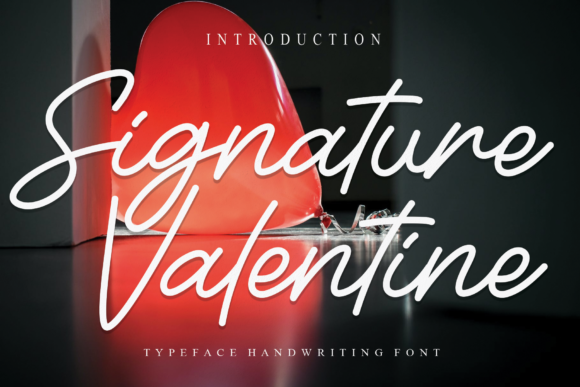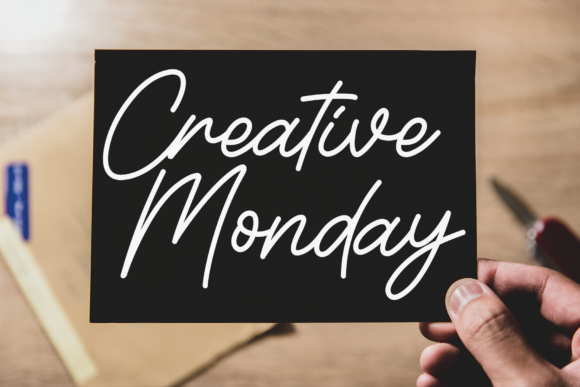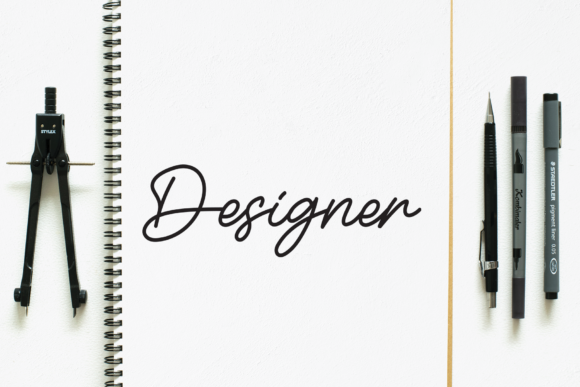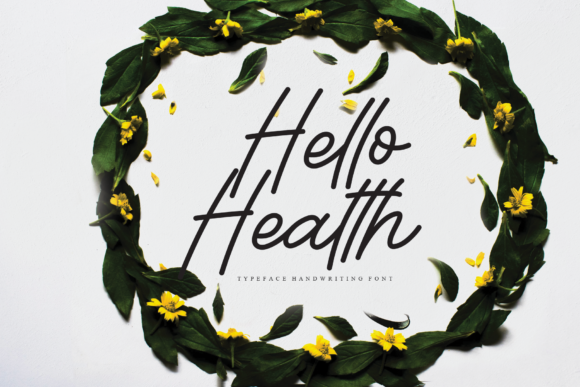
About Signature Valentine Font
Signature Valentine is a thin and simple handwritten font that brings a touch of elegance and charm to any design. With its clean and minimalist style, this font has the power to elevate your creations and add a sophisticated touch.
The thin strokes and fluid curves of Signature Valentine give it a delicate and graceful appearance. Its simplicity and understated beauty make it versatile and suitable for a wide range of topics and design projects. Whether you’re working on wedding invitations, logos, branding materials, or any other creative endeavor, Signature Valentine will enhance your designs with its timeless appeal.
One of the key strengths of Signature Valentine is its versatility. It blends seamlessly with different design styles, adapting to both modern and classic aesthetics. The font’s simplicity and clarity ensure that your message is communicated clearly and effectively, while its thin strokes add a touch of refinement and elegance.
Signature Valentine is a valuable asset to any font library because of its ability to bring a sense of sophistication and versatility to your designs. It is particularly well-suited for projects that require a clean and minimalist approach, such as elegant stationery, high-end fashion, or luxury branding. The font’s simplicity allows it to shine and create a sense of refined beauty in your designs.
Whether used in print or digital media, Signature Valentine captures attention and creates a lasting impression. Its thin and simple letterforms exude a sense of elegance and balance, showcasing the artistry behind the handwritten style. By incorporating Signature Valentine into your designs, you can achieve a polished and sophisticated look that elevates your overall visual presentation.
In summary, Signature Valentine is a thin and simple handwritten font that possesses the power to enhance any creation. Its versatility, elegance, and clean aesthetic make it a valuable addition to your font library. Embrace the timeless beauty of Signature Valentine and let it elevate your designs to new levels of sophistication.